Fonts are the essential part of any typography web design, brochure, typography design poster or a personal design project. Find that right font that fits your projects can be like finding a needle in a haystack. Each font shows a particular message, a different meaning and takes design to a high level.
Arabic fonts are pretty distinctive from other Latin Language; the Arabic writing system is one of them most hard systems in the globe of languages. Arabic is one of the wonderful languages in the globe in terms of style and expression. Designing an Arabic font is definitely challenging as Arabic uses joining dots and script and a change in posting changes the meaning. Most of the sites use the classic Arabic fonts and just classic bold faces are used for Arabic fonts. There is not much wonderful fonts used as finding them is hard, especially fonts will four faces such as bold, regular, bold and italic.
Arabic site design poses many problems for English speaking website designers and there are forever on the lookout for wonderful fonts for their site projects. The Arabic fonts are accessible in perfect style, including the modern and calligraphic but the choice for Arabic web-font is restricted.
It has an aim to impart, a message to disclose, a meaning to show, an idea to bring it on and a well-knit thought to unfold. Fonts are one of the introductions before a designer begins off a task. They are exactly the substance of a design poster. Whether it is to design a layout or a business card, without words written on it with a specific font, thing will go to barrel box and would likely be having no meaning.
Urdu Typography
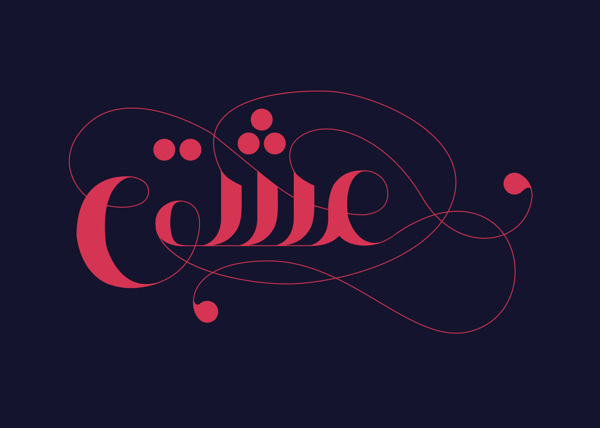
Jude – Arabic Calligraphic Script
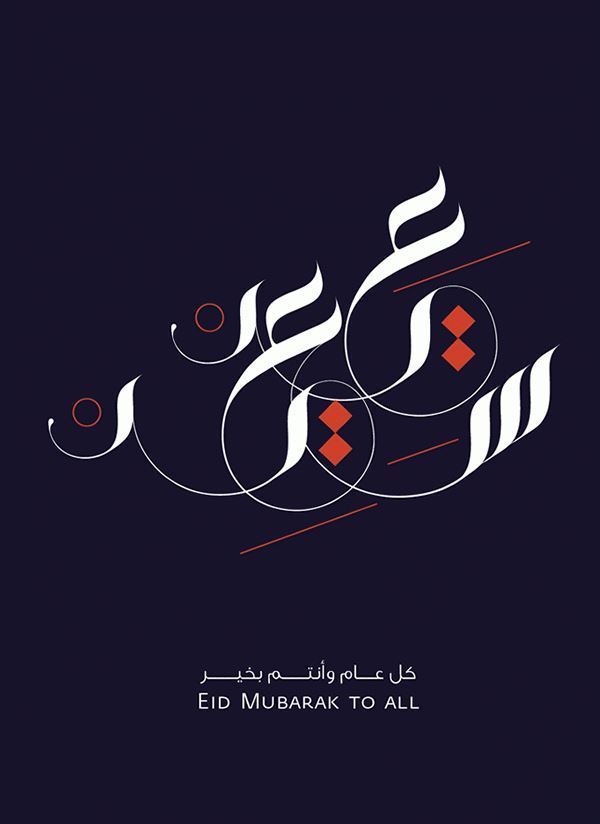
Alhambra
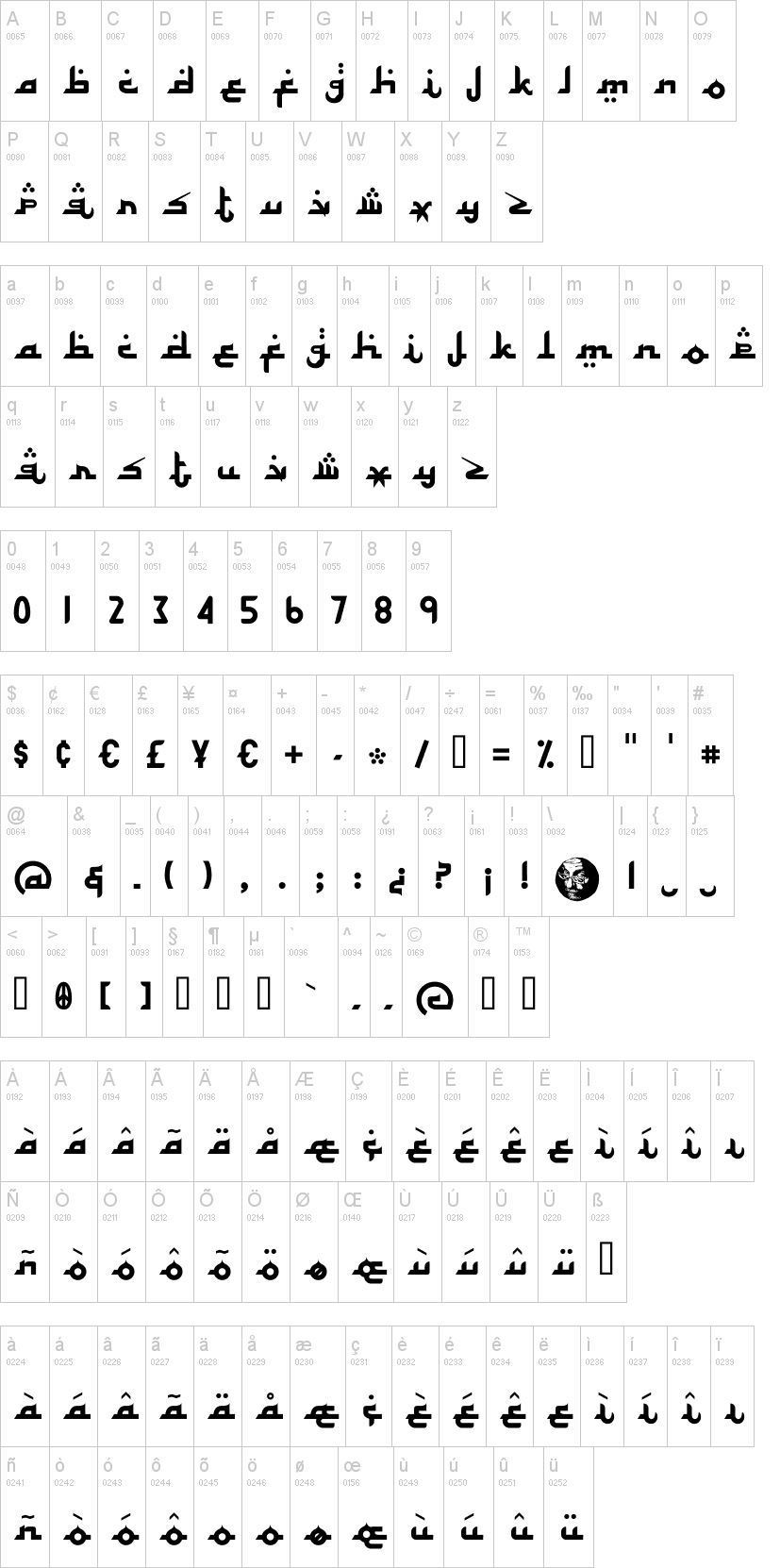
Arabian Onenightstand
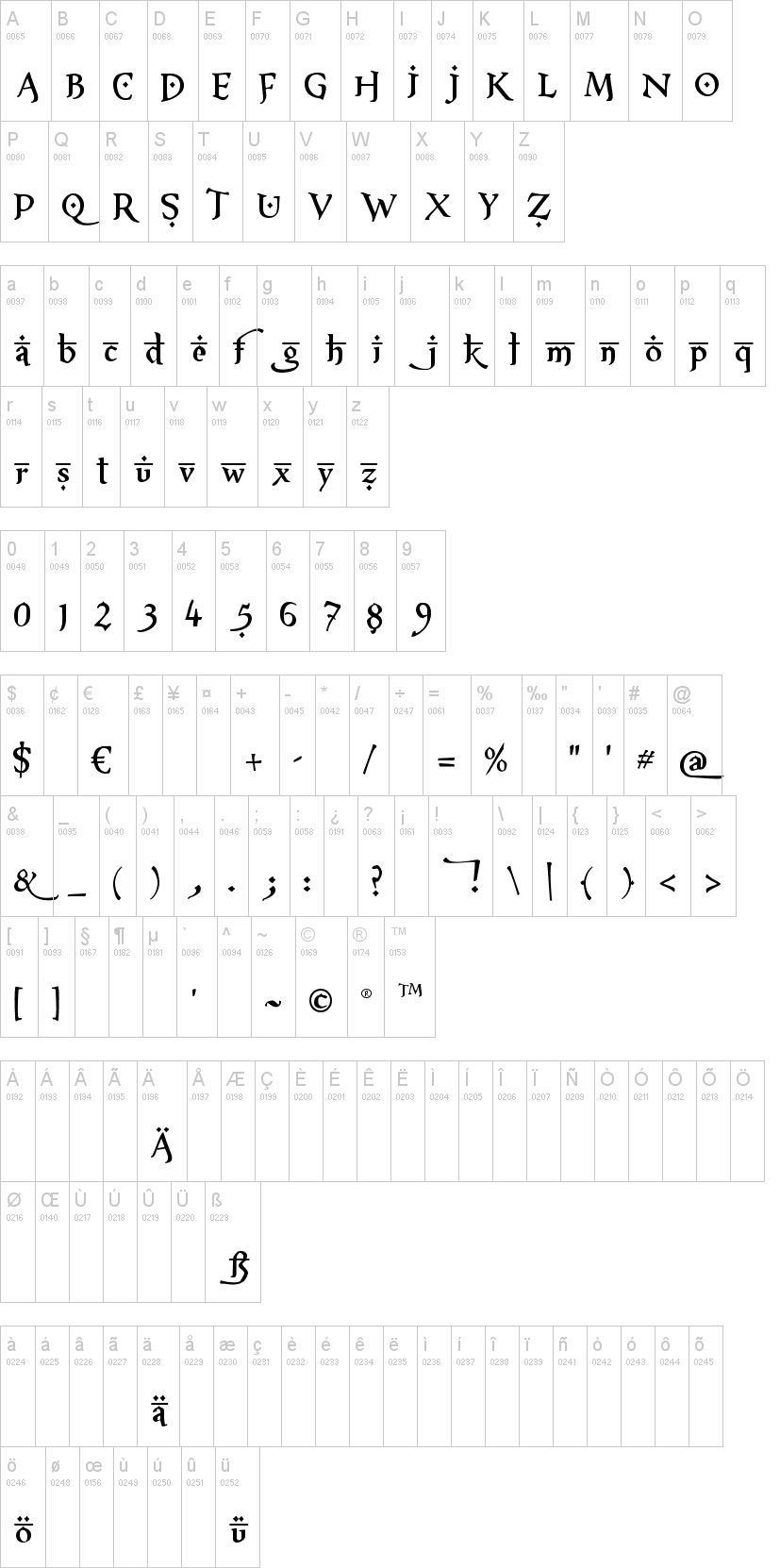
Arabic Calligraphy
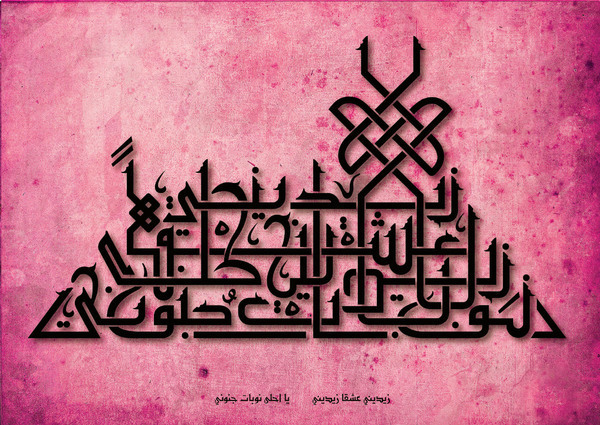
Arab Dances
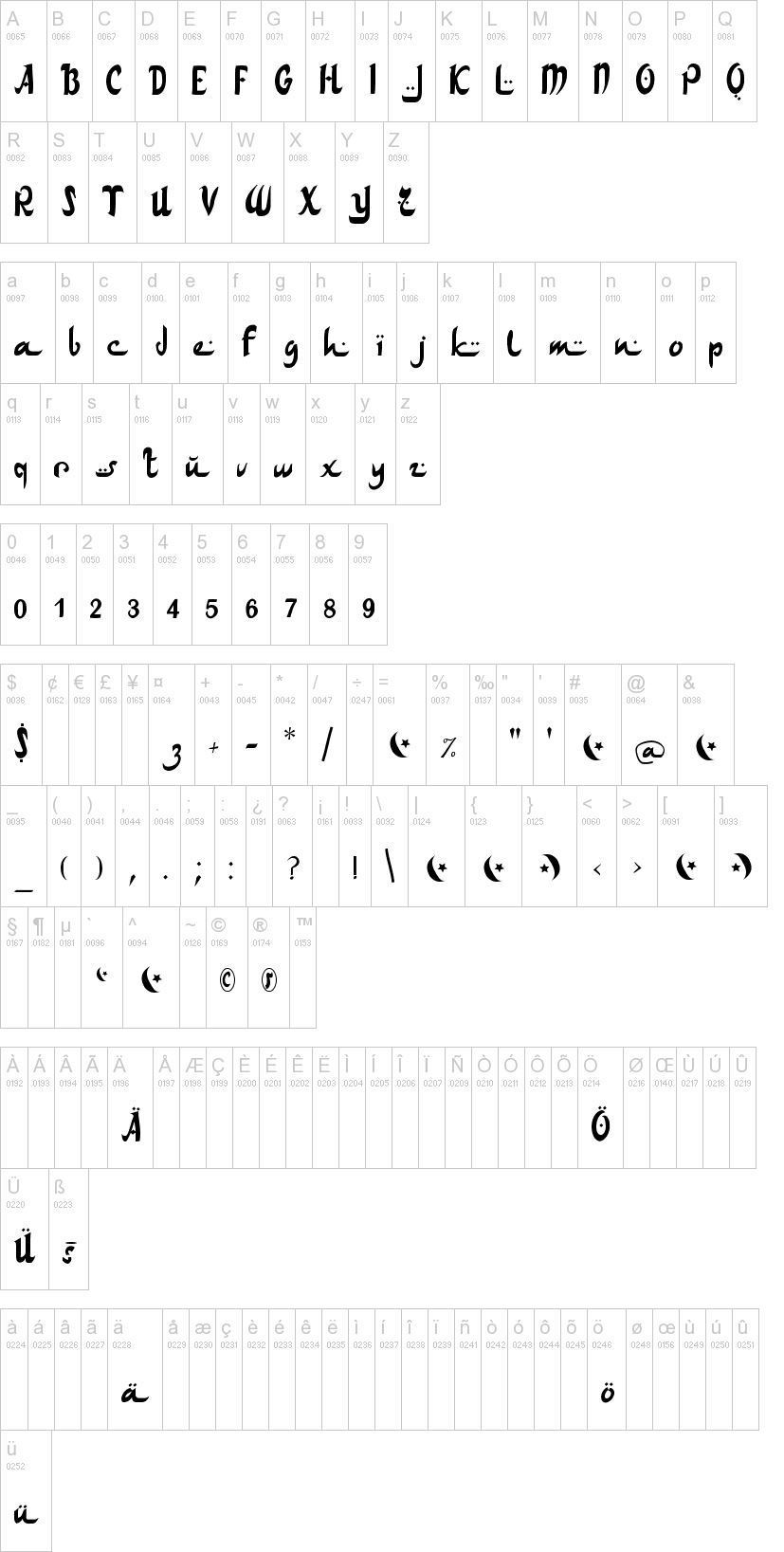
Colored Arabic Calligraphy
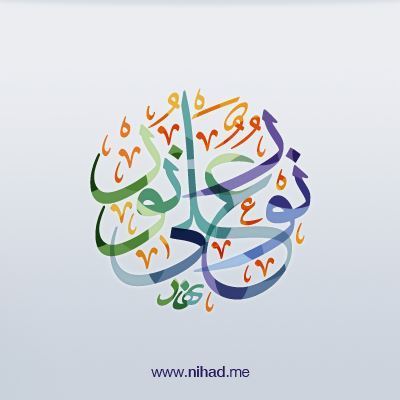
Islamic Calligraphy Work
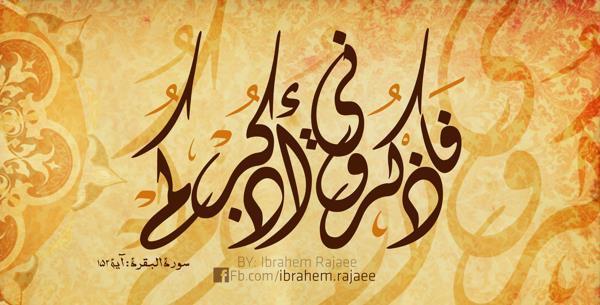
Aceh Darusalam
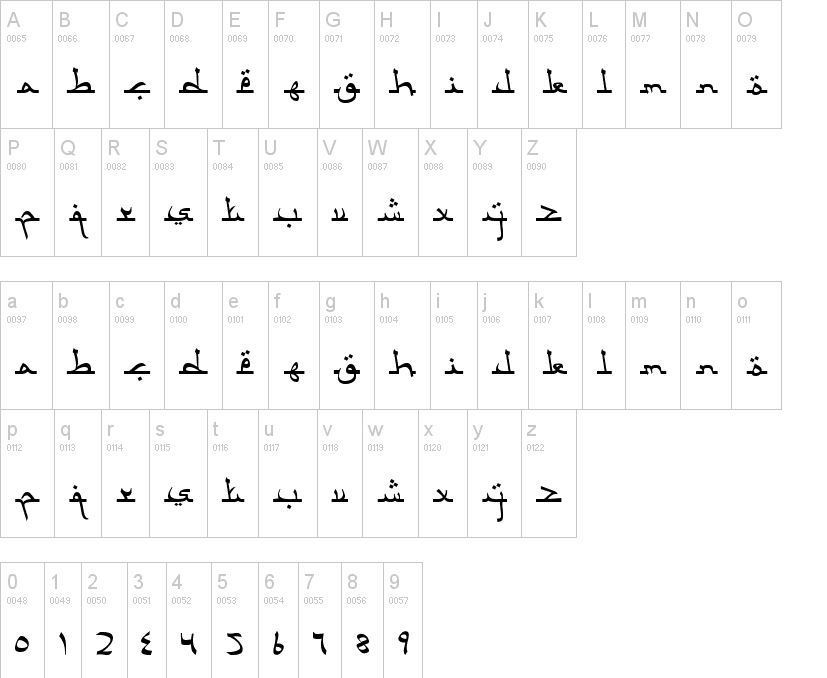
Freehand Arabic Calligraphy
Arabic Magic